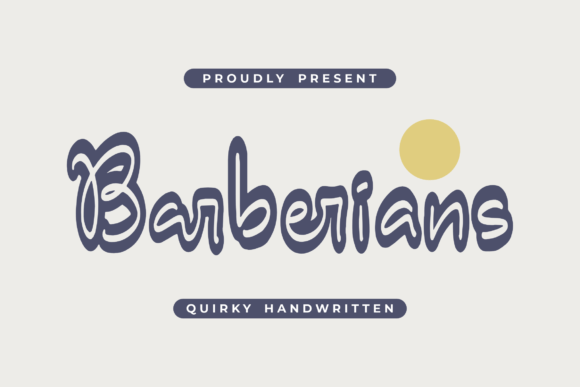
Introducing Barberians Font: The Quirky Handwritten Font for Creative Projects
Are you a designer or crafter looking for a unique and eye-catching font to elevate your projects? Look no further than Barberians Font, a quirky handwritten font that’s perfect for a wide range of creative endeavors. From logos and branding projects to homeware designs, product packaging, and more, Barberians Font is the perfect choice for adding a touch of personality and whimsy to your work.
What is Barberians Font?
Barberians Font is a carefully crafted handwritten font that’s designed to bring a sense of playfulness and charm to your projects. With its quirky and irregular strokes, this font is sure to capture the attention of your audience and leave a lasting impression. Whether you’re working on a logo, a poster, or a product label, Barberians Font is the perfect choice for adding a touch of personality and flair.
What Makes Barberians Font So Versatile?
One of the things that sets Barberians Font apart is its incredible versatility. This font can be used for a wide range of projects, including:
• Logos and branding projects: Create a unique and memorable brand identity with Barberians Font.
• Homeware designs: Add a touch of personality to your home decor with Barberians Font on mugs, pillows, and more.
• Product packaging: Stand out on store shelves with Barberians Font on your product labels and packaging.
• Mugs and quotes: Create inspiring and humorous quotes on mugs and other products.
• Posters and flyers: Grab attention with Barberians Font on your promotional materials.
• Shopping bags and t-shirts: Add a touch of whimsy to your merchandise with Barberians Font.
• Book covers and name cards: Create eye-catching book covers and name cards with Barberians Font.
• Invitation cards and greeting cards: Add a personal touch to your invitations and greeting cards.
• Labels and photography: Use Barberians Font as a watermark or overlay for your photos.
• Special events: Create custom event materials with Barberians Font, such as wedding invitations and party decorations.
Why Choose Barberians Font?
So why choose Barberians Font for your projects? Here are just a few reasons:
• Unique and eye-catching: Barberians Font is a one-of-a-kind font that’s sure to grab attention.
• Highly versatile: Use Barberians Font for a wide range of projects, from logos to product packaging.
• Easily readable: Despite its quirky nature, Barberians Font is still easy to read and understand.
• Perfect for creative projects: Barberians Font is ideal for designers, crafters, and artists looking to add a touch of personality to their work.